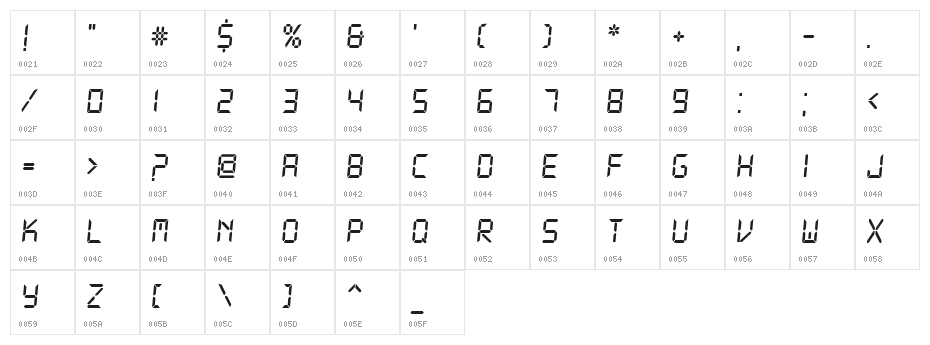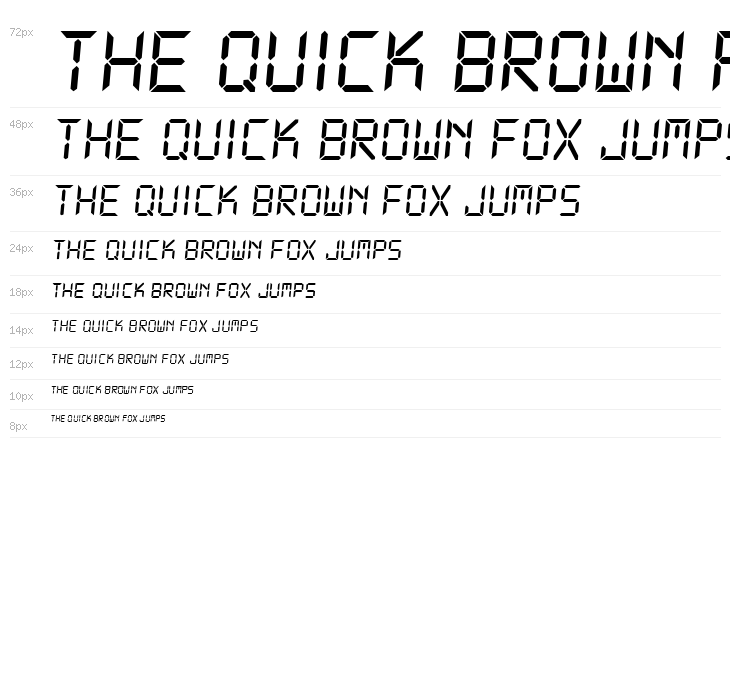
DS-Digital Italic Font
DS-Digital Italic Description
This font is reminiscent of digital displays, featuring a segmented style that mimics the look of LED or LCD screens. Each character is constructed from a series of straight lines and angles, giving it a distinctly technical and modern appearance. The italic slant adds a dynamic touch, suggesting motion and speed. The font is highly legible, even at smaller sizes, due to its clear and distinct character shapes. It includes a full set of uppercase and lowercase letters, numbers, and a variety of special characters, making it versatile for various applications.
| Proposed Projects | Perfect for digital clocks, tech-themed posters, video game interfaces, and futuristic branding. |